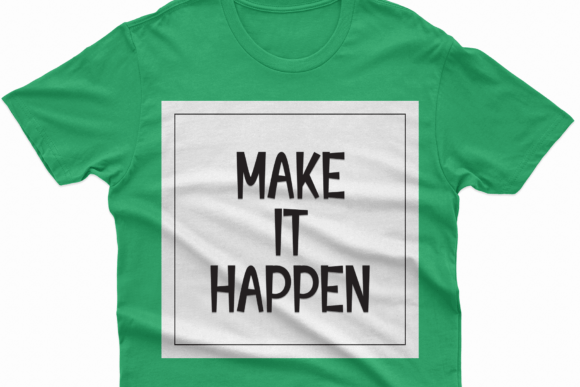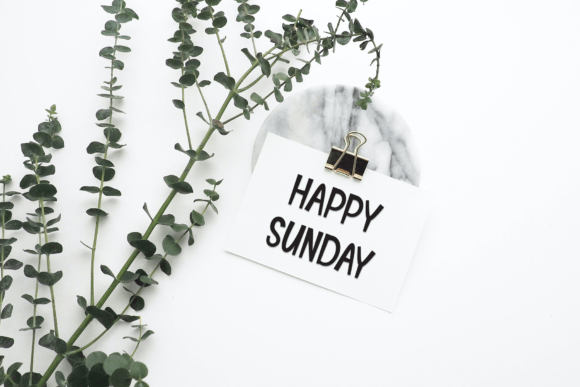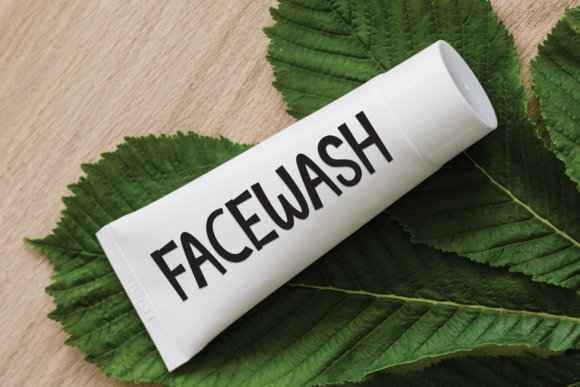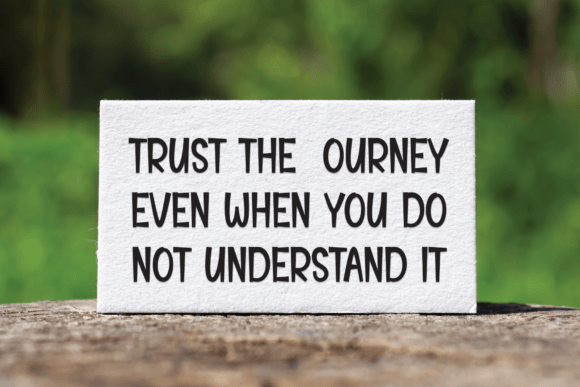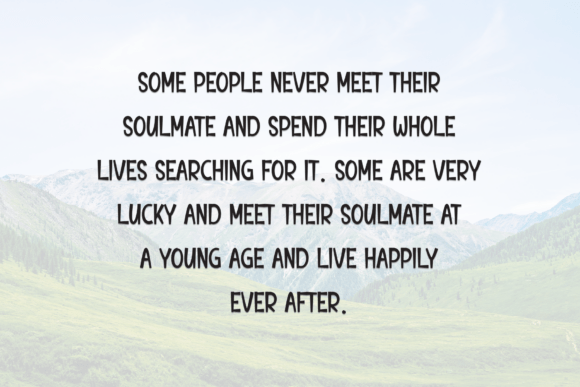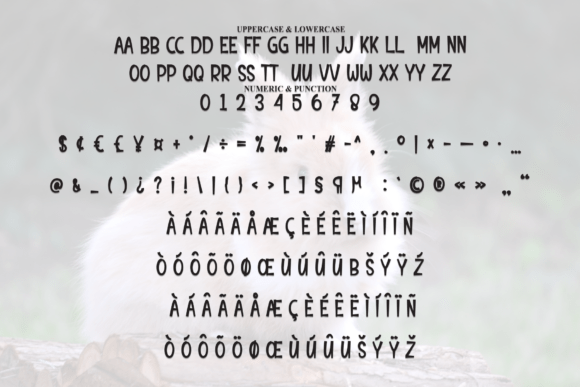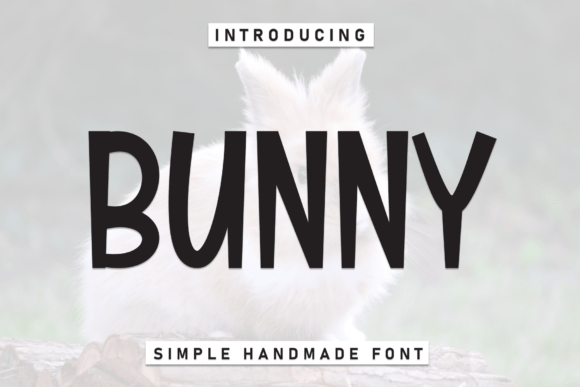
Bunny Font: The Perfect Blend of Simplicity and Friendliness
In the world of typography, fonts play a crucial role in conveying the tone and personality of a brand or design. Among the numerous fonts available, Bunny Font stands out for its unique blend of simplicity, friendliness, and approachability. This casual and neat display font has gained popularity among designers and crafters for its ability to add a warm and inviting touch to various design projects.
What Makes Bunny Font Special?
Bunny Font is designed to capture the essence of modern handwritten typography with a polished finish. Its clean lines, balanced letterforms, and subtle rounded edges make it an excellent choice for a wide range of design applications. Whether you’re working on branding, headlines, packaging, or digital content, Bunny Font is sure to deliver clarity and charm in equal measure.
Key Features of Bunny Font
• Clean Lines: Bunny Font features clean lines that give it a crisp and modern look. This makes it perfect for designs that require a touch of sophistication and elegance.
• Balanced Letterforms: The font’s balanced letterforms ensure that each character is harmonious and visually appealing. This balance contributes to the overall readability and aesthetic appeal of the font.
• Subtle Rounded Edges: The subtle rounded edges of Bunny Font add a friendly and approachable vibe to the font. This feature makes it ideal for designs that require a warm and inviting tone.
• Versatile Style: Bunny Font is designed to be versatile, making it suitable for various design applications. Its adaptability ensures that it can be used in different contexts, from digital content to print materials.
Use Cases for Bunny Font
Bunny Font is an excellent choice for a wide range of design projects, including:
• Branding: Use Bunny Font to create a unique and memorable brand identity. Its friendly and approachable vibe makes it perfect for brands that want to convey a sense of warmth and approachability.
• Headlines: Bunny Font is ideal for headlines and titles that require a touch of elegance and sophistication. Its clean lines and balanced letterforms make it perfect for grabbing attention and conveying important information.
• Packaging: Add a warm and inviting touch to your packaging designs with Bunny Font. Its versatile style ensures that it can be used on various packaging materials, from labels to boxes.
• Digital Content: Bunny Font is perfect for digital content, including social media posts, blog articles, and website headers. Its clean lines and readable letterforms make it easy to read on various devices.
Why Designers and Crafters Love Bunny Font
Designers and crafters love Bunny Font for its unique blend of simplicity, friendliness, and versatility. Here are some reasons why:
• Ease of Use: Bunny Font is easy to use and works well in various design applications. Its versatility ensures that it can be used in different contexts, making it a valuable addition to any designer’s toolkit.
• High Readability: Bunny Font is designed to be highly readable, making it perfect for designs that require a clear and concise message.
• Unique Style: Bunny Font has a unique style that sets it apart from other fonts. Its clean lines, balanced letterforms, and subtle rounded edges make it an excellent choice for designers who want to add a touch of elegance and sophistication to their designs.
In conclusion, Bunny Font is an excellent choice for designers and crafters who want to add a warm and inviting touch to their designs. Its unique blend of simplicity, friendliness, and versatility makes it perfect for various design applications, from branding and headlines to packaging and digital content. With its clean lines, balanced letterforms, and subtle rounded edges, Bunny Font is sure to deliver clarity and charm in equal measure.